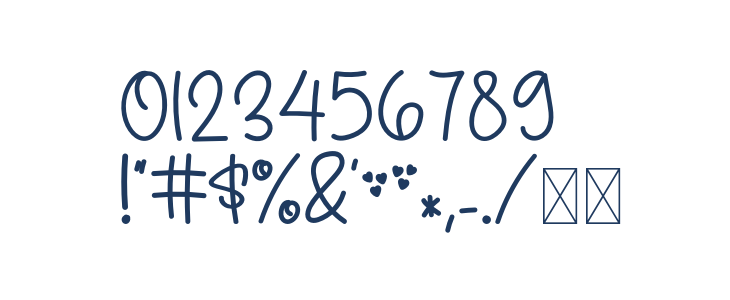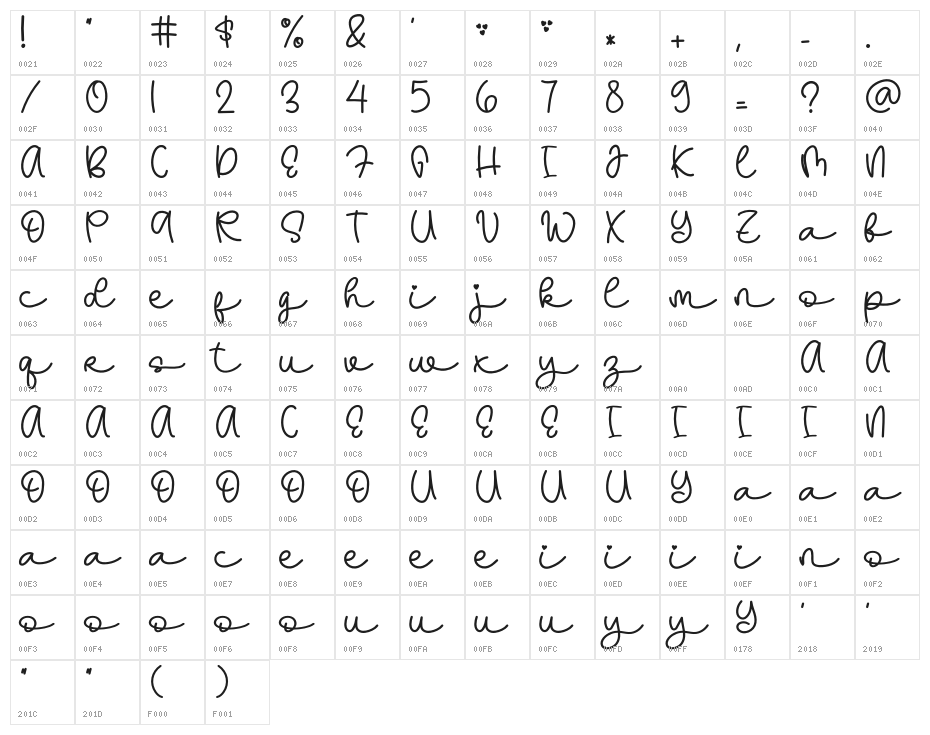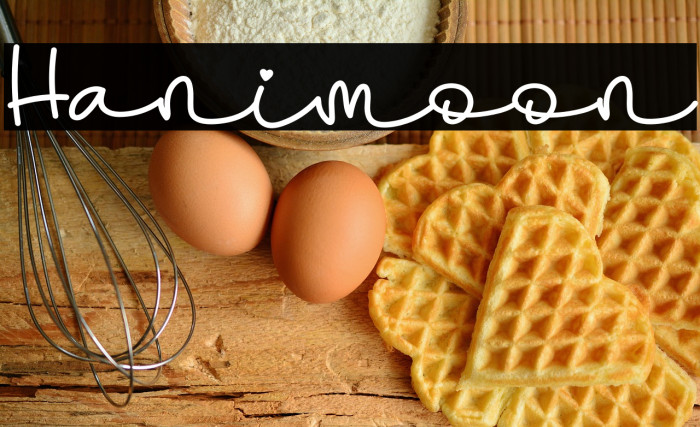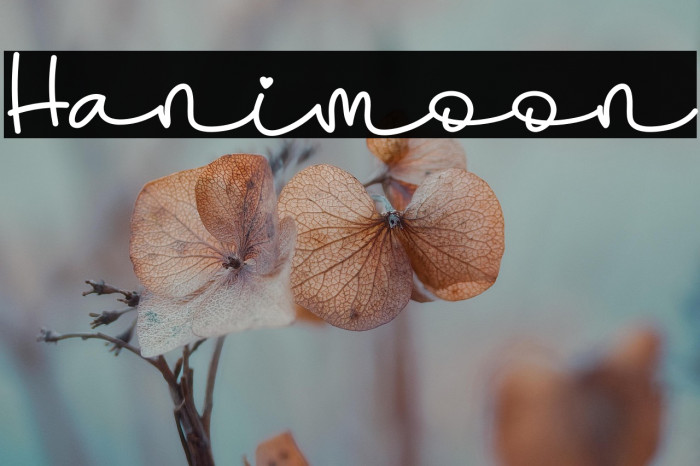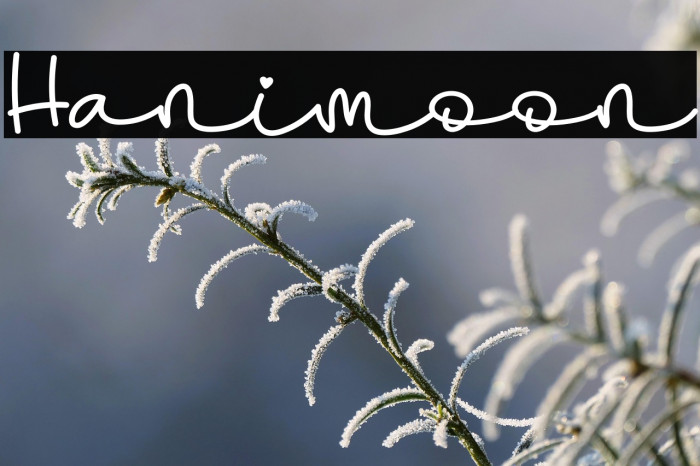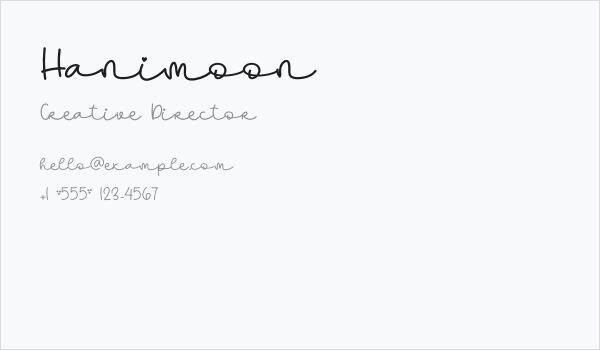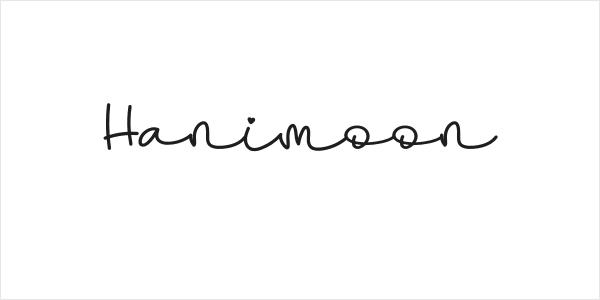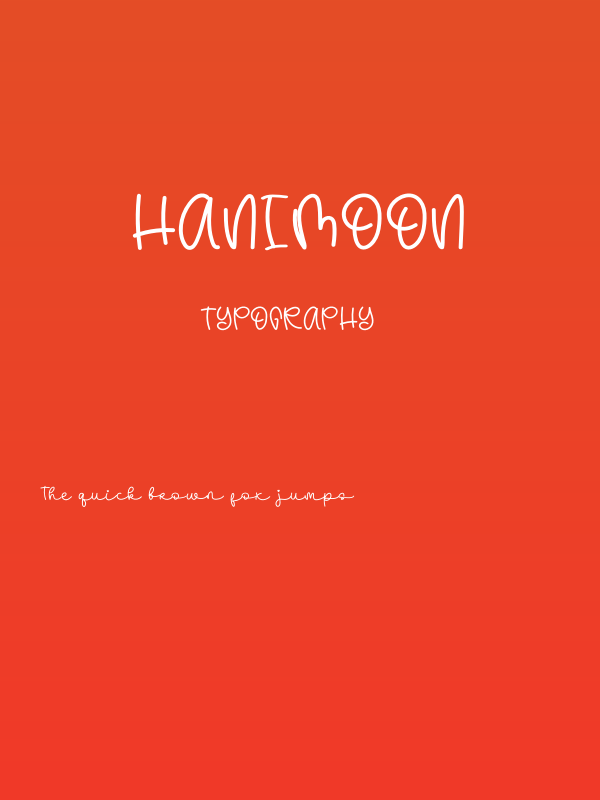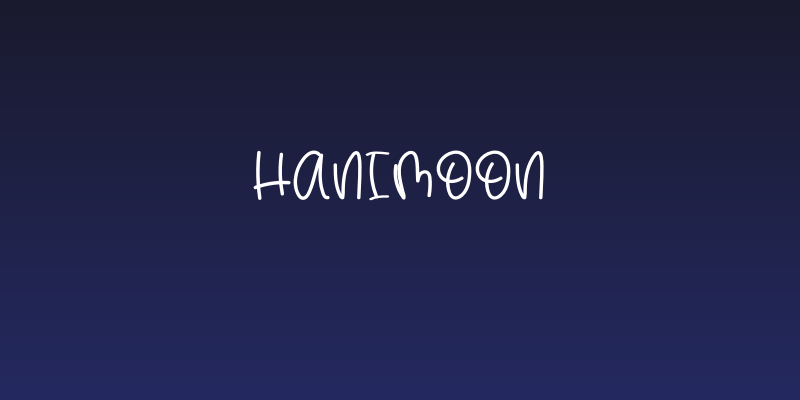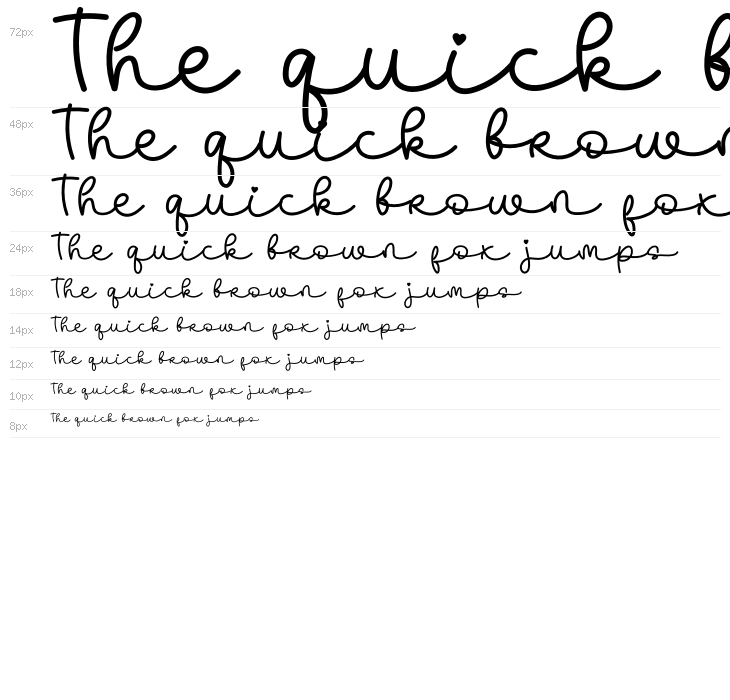
Hanimoon Font
Hanimoon Description
This playful and whimsical font features a handwritten style with a casual and friendly appearance. The uppercase letters are bold and rounded, with a consistent stroke width that gives them a smooth and approachable look. The lowercase letters maintain a similar style, with a slightly more fluid and connected form, enhancing the handwritten feel. The numerals are clear and legible, matching the overall aesthetic with their rounded and consistent shapes. Special characters are included, maintaining the same playful and approachable style. This font is perfect for projects that require a personal touch, such as invitations, greeting cards, or playful branding.
| Overall Style | Playful |
| Proposed Projects | Ideal for invitations, greeting cards, playful branding, and personal projects. |